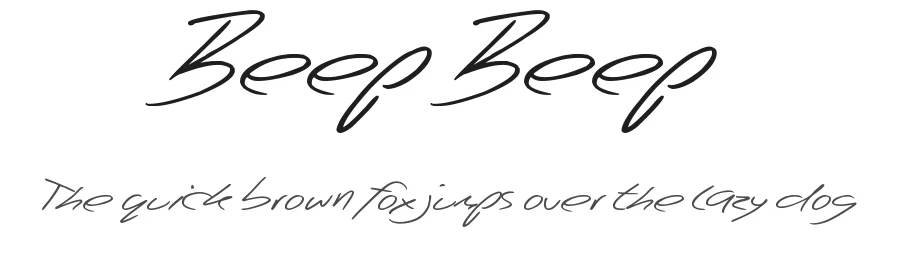
About Webrush Font
Webrush Specifications
| Font Family | Webrush |
| Full Name | Webrush |
| Glyph Count | 113 glyphs |
| PostScript Name | Webrush |
| Designer | Risman Ginarwan |
Webrush Font is a script font that shines as a display or heading face. Pair it with a clean sans-serif or serif font for body text β the contrast creates a clear hierarchy while the two styles stay balanced and easy to read.